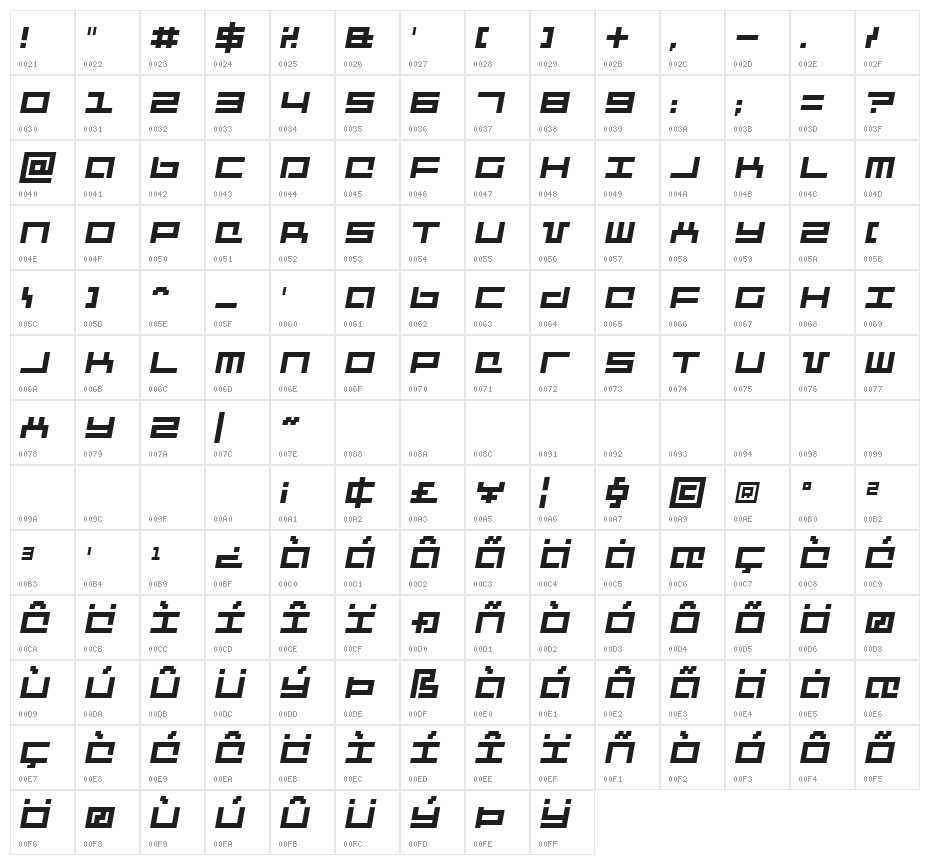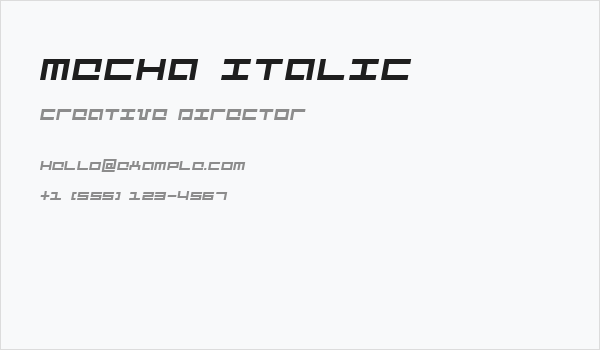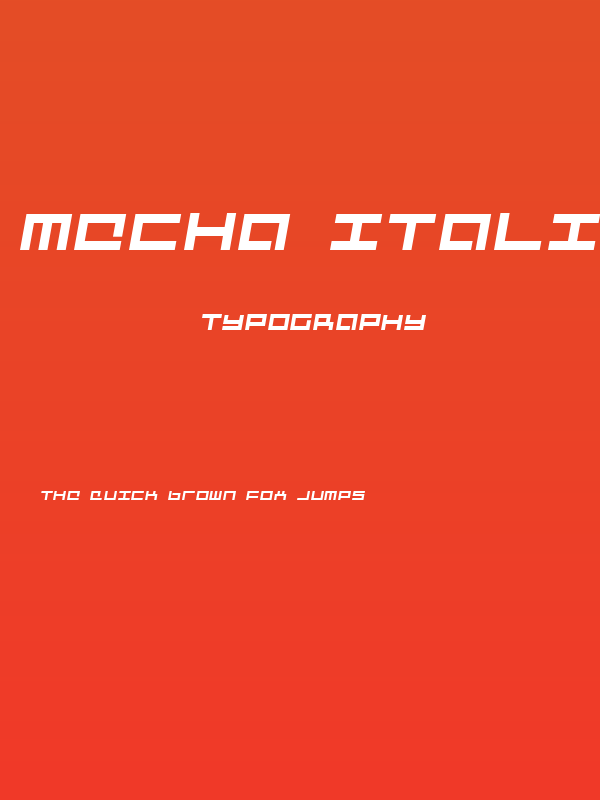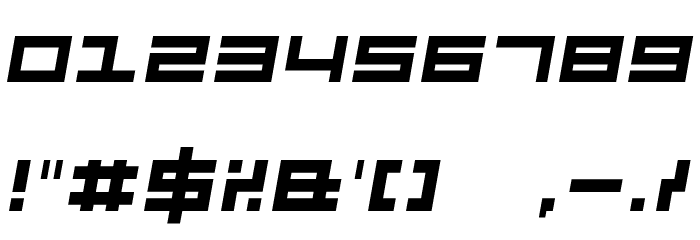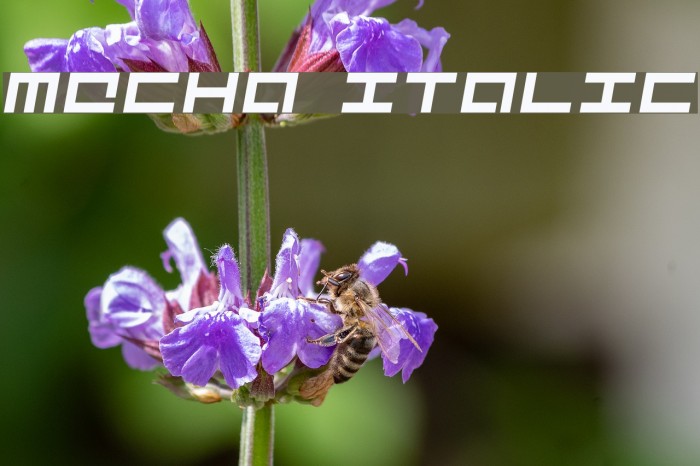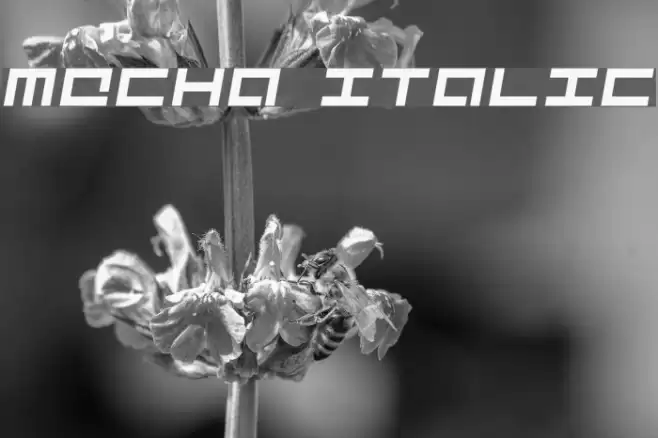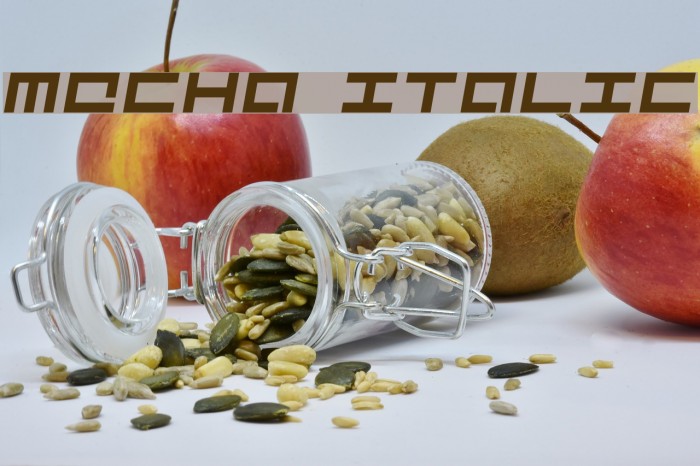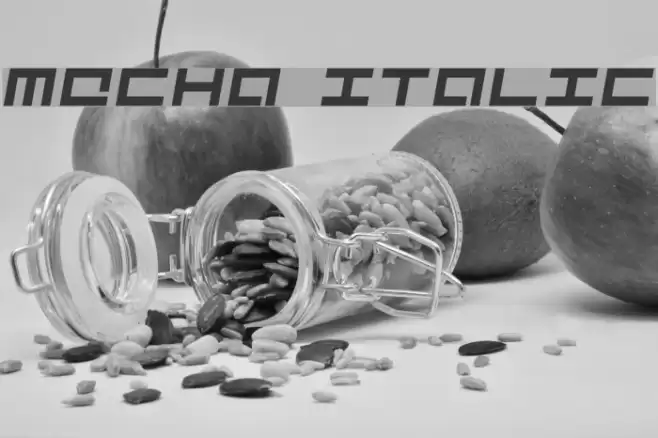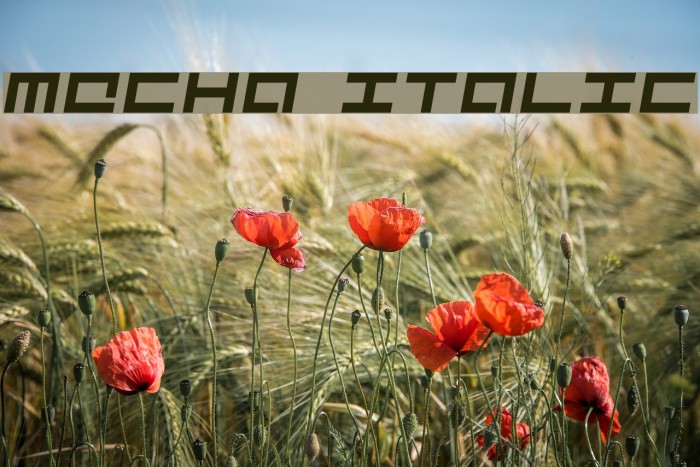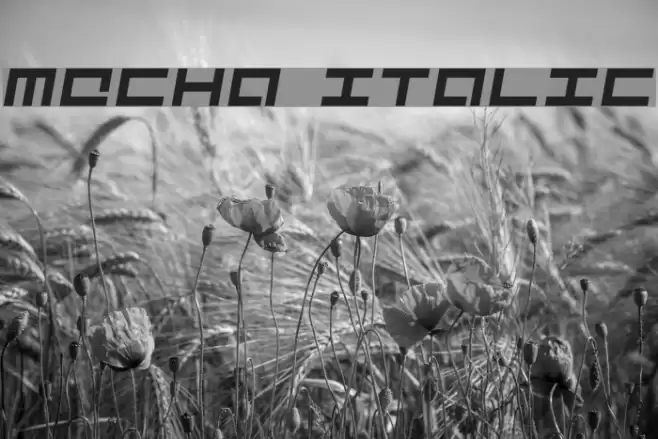
Mecha Italic Font
Mecha Italic Description
This font exhibits a futuristic and angular design, characterized by its sharp edges and geometric shapes. The characters are slanted, giving an italicized appearance that enhances its dynamic and modern feel. The uppercase and lowercase letters maintain a consistent style, with a uniform height that contributes to a cohesive look. The numerals and special characters follow the same design principles, ensuring a seamless integration across all text elements. The font's bold weight and expanded width make it highly legible and impactful, suitable for attention-grabbing headlines or digital interfaces.
| Use Case | Headlines, Logos, Digital interfaces |
| Proposed Projects | Ideal for sci-fi themed projects, tech branding, video game interfaces, and modern digital displays. |